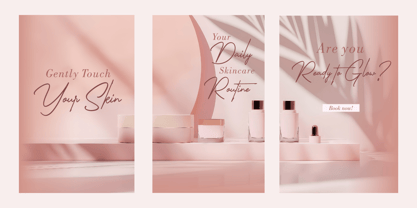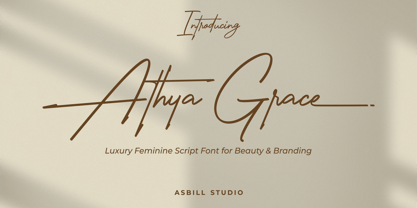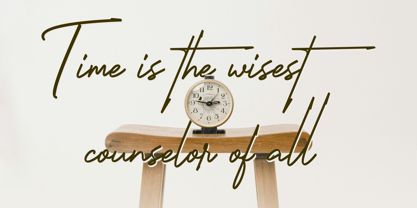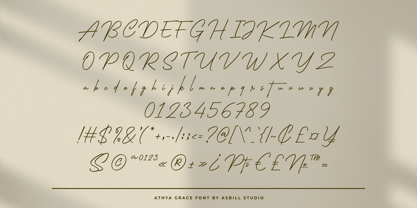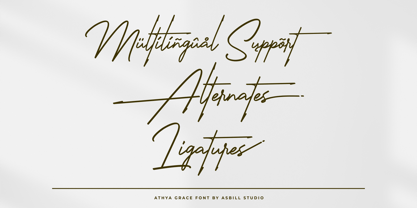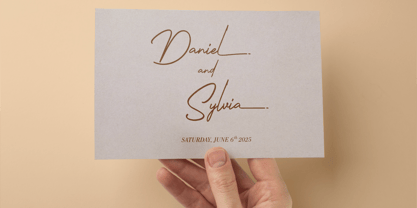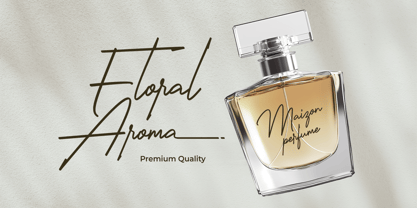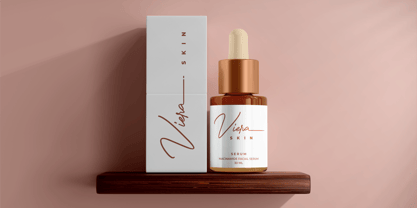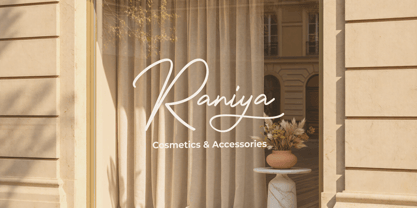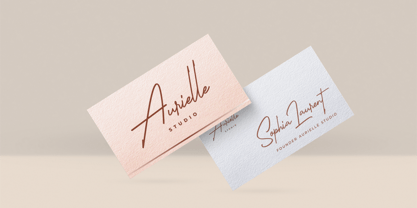
Athya Grace
Athya Grace is a sophisticated and expressive script typeface designed to embody elegance, femininity, and timeless luxury. Featuring graceful handwritten strokes, flowing curves, and beautifully crafted swashes, this font brings a refined and personal touch to every design.
Its distinctive letterforms combine modern sophistication with the charm of natural calligraphy, creating a stylish visual identity that feels both luxurious and effortlessly graceful. Athya Grace is perfect for high-end branding projects that require a memorable, elegant, and feminine presence.
Ideal for luxury logos, beauty and skincare branding, fashion labels, wedding stationery, product packaging, editorial designs, social media content, and premium lifestyle projects. Whether used as a striking signature-style logo or an elegant headline, Athya Grace adds sophistication and character to every composition.